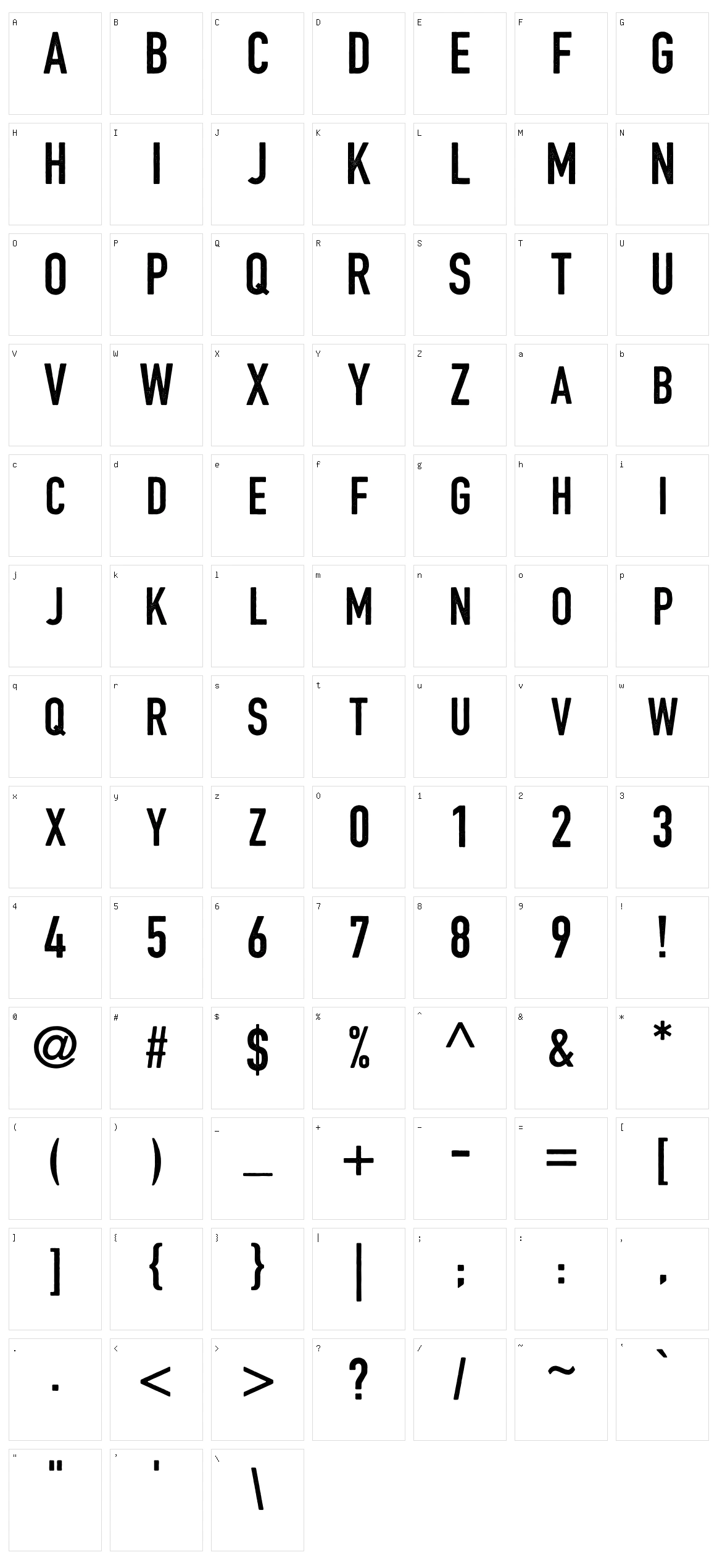
BAR BOOTH AT MATTS
BAR BOOTH AT MATTS is a pub font, a bar font, a band-poster for the tiny stage font, and it's named after not only a real bar, but a very important booth ... or at least, a very important memory, from within a booth, within a bar, one night a few years ago. It isn't necessary to know the story to enjoy the font. I'll just say that the story is far more innocent, far more G-Rated, than you might be thinking. But "thinking" is what it was really about. Here's hoping this font has legs.
BAR BOOTH AT MATTS is a full US-Keyboard Small-Caps stressed poster font with several extras for additional European alphabets. It's been designed for high-resolution jobs in particular, but I look forward to seeing how other designers make use of it. Enjoy!